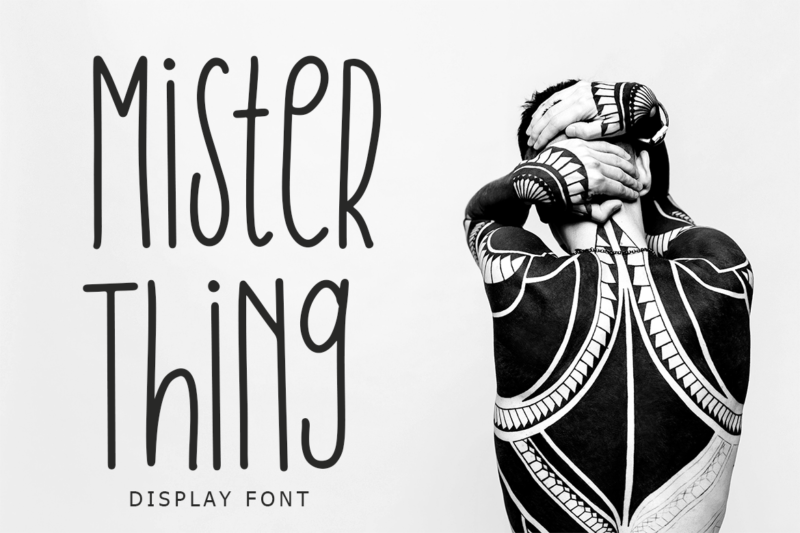
Mister thing font
Mister Thing is Display font that perfect for branding projects, logo, tshirt designs, social media posts, advertisements, product packaging, product designs, label, watermark, invitation, stationery and any projects.
Mister Thing is Display font that perfect for branding projects, logo, tshirt designs, social media posts, advertisements, product packaging, product designs, label, watermark, invitation, stationery and any projects